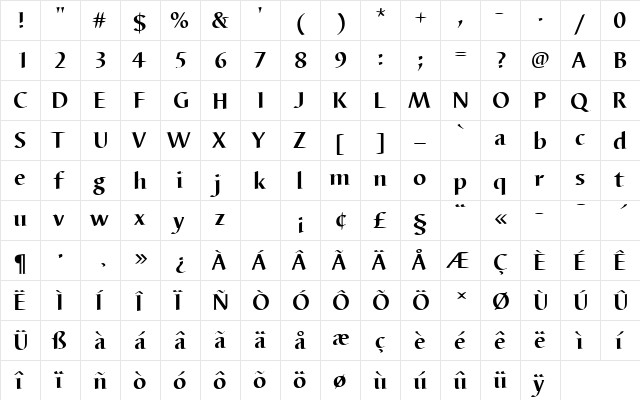
BarbedorTBolRo1 Regular
Design Context for BarbedorTBolRo1 Typeface
BarbedorTBolRo1 takes a measured approach to typography — its balanced proportions and neutral character make it a reliable workhorse for both digital and print work.
Pro Tip: Use BarbedorTBolRo1 in both headline and body roles to test its range before committing to a single application.